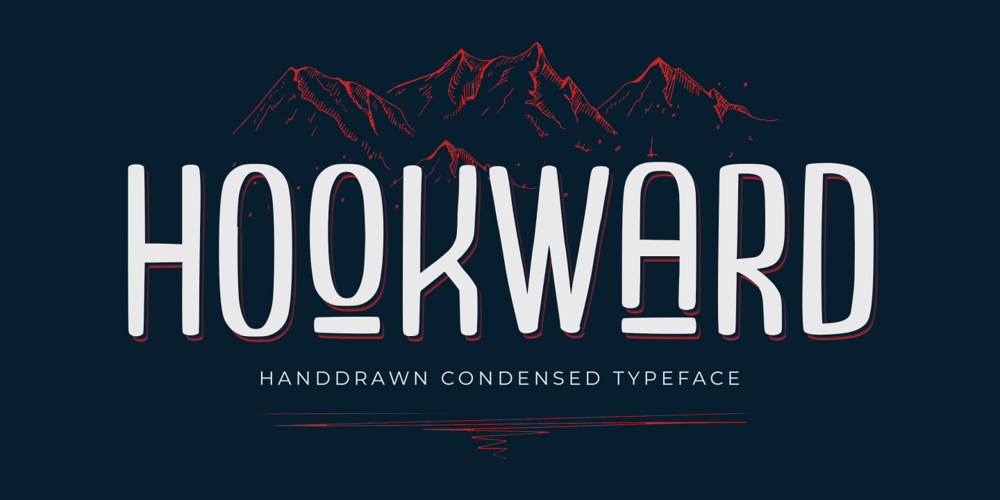
Hookward
Hookward font
Hookward Font Family was designed by Risman Ginarwan and published by Garisman Studio. Hookward contains 1 styles and family package options. Hookward CondensedHookward is a very cool font for a design with modern display headline: magazine, poster, branding, labels, music, and minimalism styles. With a strong display and clean nodes make a text in a design become more character and great. Inspired by the current trend of sports texts with a very modern and cool headline style.